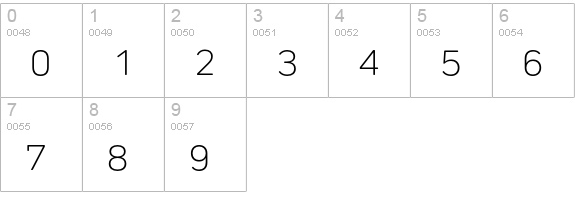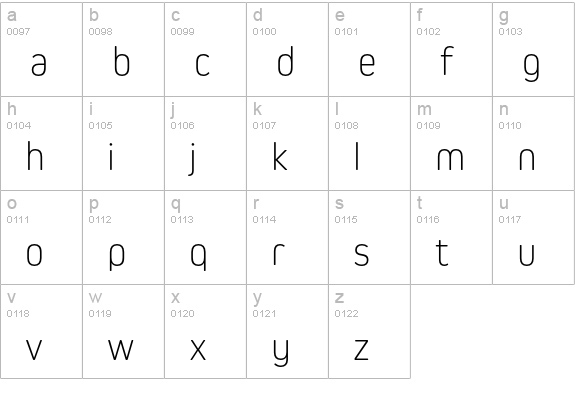
Kiro Extra Light is a refined, elegant variant in the Kiro typeface family \xE2\x80\x94 well suited to elegant body text, refined sub-headings, and luxury branding.
Kiro Extra Light font is a modern and elegant typeface that exudes sophistication and style. With its clean lines and delicate curves, this font is perfect for adding a touch of refinement to your design projects. The extra light weight of Kiro gives it a subtle and airy appearance, making it ideal for conveying a sense of grace and subtlety. What makes Kiro Extra Light font even more appealing is that it is available for free download at FontsMarket.com. This means that you can easily access this beautiful typeface and use it in your creative work without any cost. Whether you are designing a logo, creating a website, or working on a print project, Kiro Extra Light font is sure to enhance your design with its understated elegance and timeless appeal. Download it today and elevate your projects with this exquisite typeface.